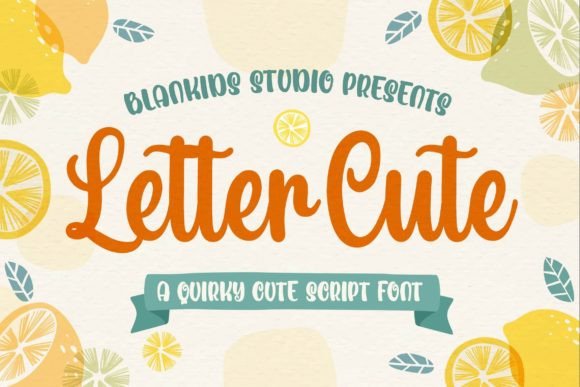
Step into the enchanting world of Letter Cute Font, a spirited handwritten script font that exudes playfulness and authenticity. This charming font, brought to life by the talented Blankids Studio, is the perfect companion for any children's activity or school project, adding a touch of whimsy and creativity to your designs.
Imagine your little one's eyes lighting up as they see their name written in the enchanting swirls of Letter Cute Font. It's like stepping into a magical storybook, where every letter dances and twirls with joy. Whether it's a personalized invitation, a colorful poster, or a heartwarming greeting card, Letter Cute Font transforms ordinary words into extraordinary expressions of love and imagination.
With its playful curves and charming imperfections, Letter Cute Font embodies the spirit of childhood. It's a font that speaks to the innocence and wonder of youth, capturing the essence of those carefree days spent dreaming, laughing, and exploring. Use it to create enchanting designs that resonate with children's imaginations and bring a smile to their faces.
Beyond its playful charm, Letter Cute Font is also a versatile and practical choice for a wide range of projects. Its legible and easy-to-read style makes it perfect for educational materials, such as worksheets, presentations, and posters. The font's friendly and approachable nature also shines in branding and marketing materials for children's products and services.
So unleash your creativity and let Letter Cute Font add a touch of magic to your designs. It's a font that will capture hearts, spark imaginations, and leave a lasting impression. Download Letter Cute Font today and embark on a creative journey that's as delightful as it is inspiring.